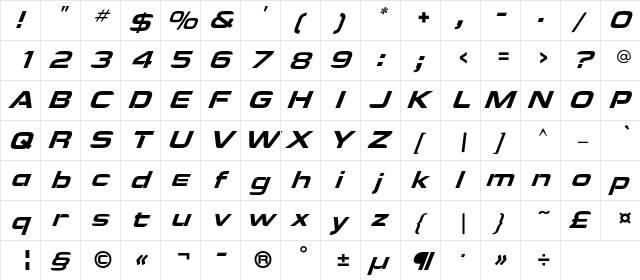
ManiaExtendedC Italic
Design Context for ManiaExtendedC Typeface
ManiaExtendedC offers clean, dependable letterforms without strong stylistic allegiance, making it a practical choice for designers who need flexibility. The dynamic lean of this cut emphasises speed and emphasis in any layout.
Pro Tip: Try ManiaExtendedC for annotation and caption copy alongside an upright companion — the contrast in angle creates a dynamic but ordered typographic system.